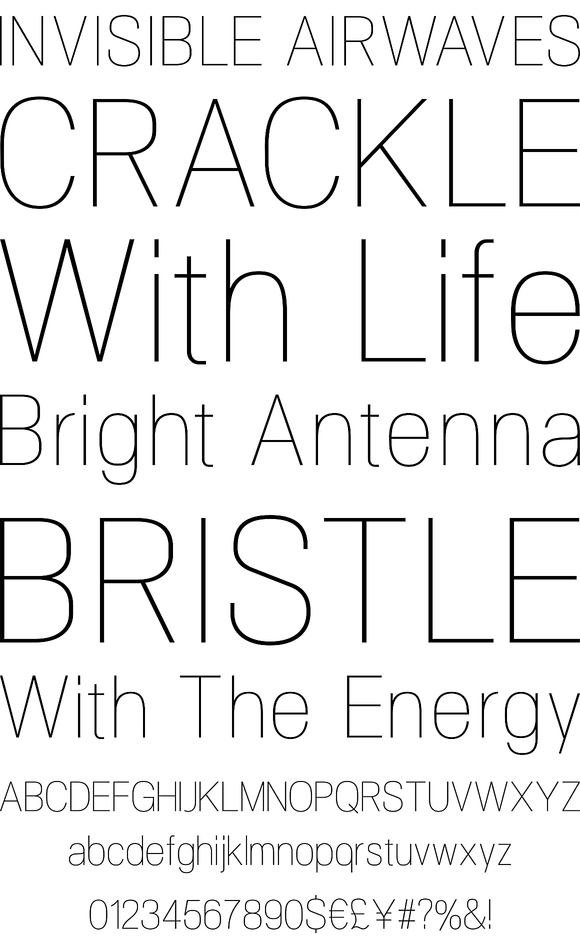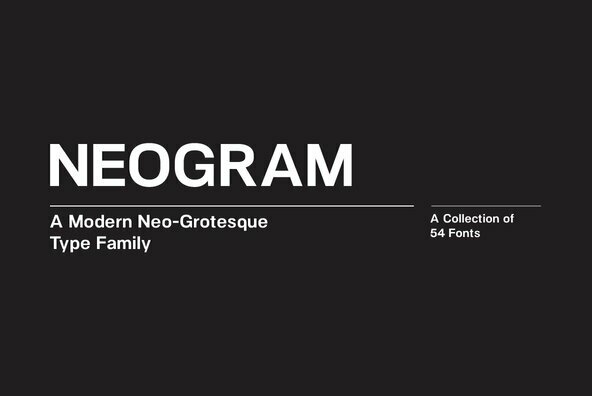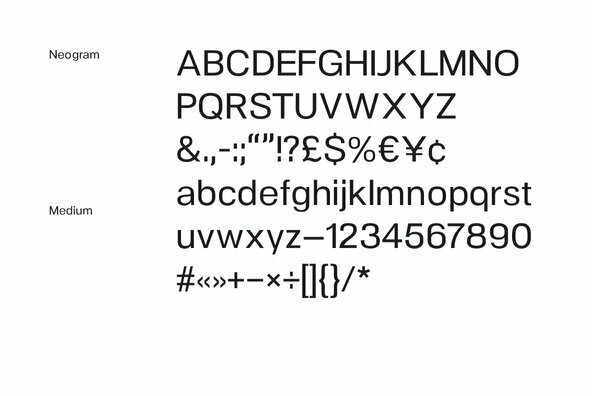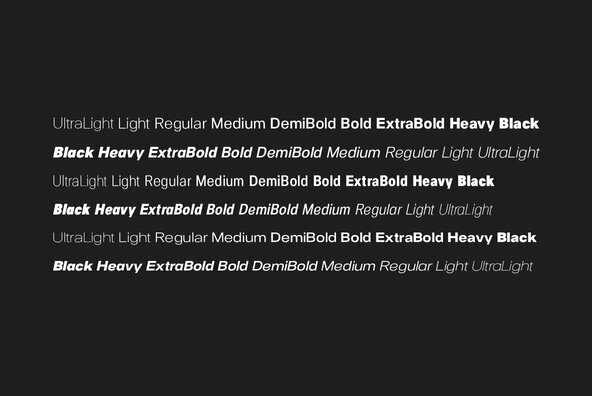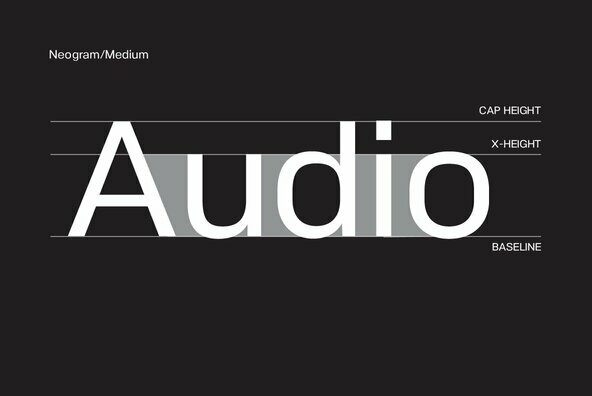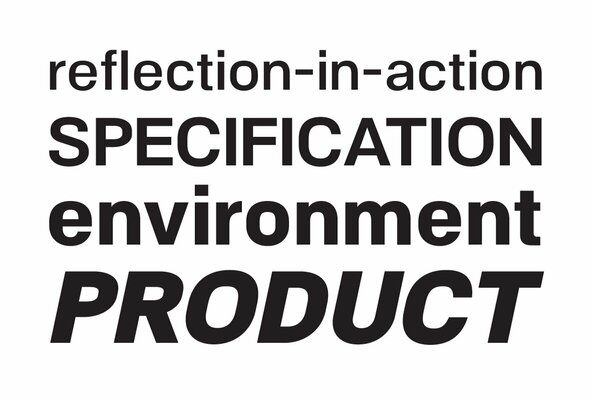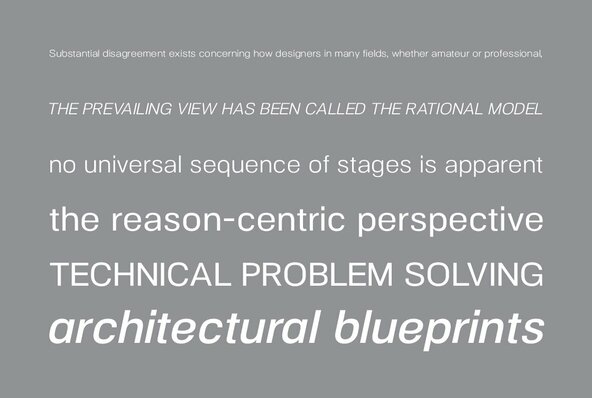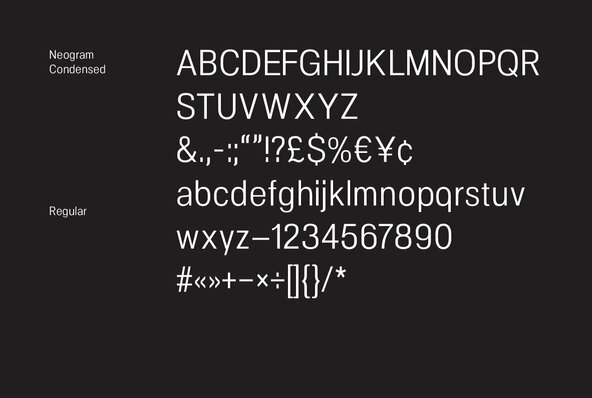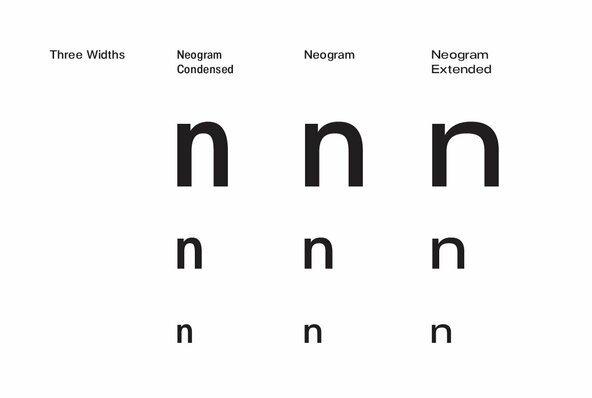
NeoGram
A modern sans serif typeface influenced by the work of the Haas type foundry. The concept was to create a neutral typeface that would demonstrate great clarity of form whilst been understated in it's intended use of application.
Foundry: The Northern Block
A modern sans serif typeface influenced by the work of the Haas type foundry. The concept was to create a neutral typeface that would demonstrate great clarity of form whilst been understated in it's intended use of application. This extensive type family has 27 fonts, 3 different widths, a full character set, manually edited kerning and Euro Symbol.